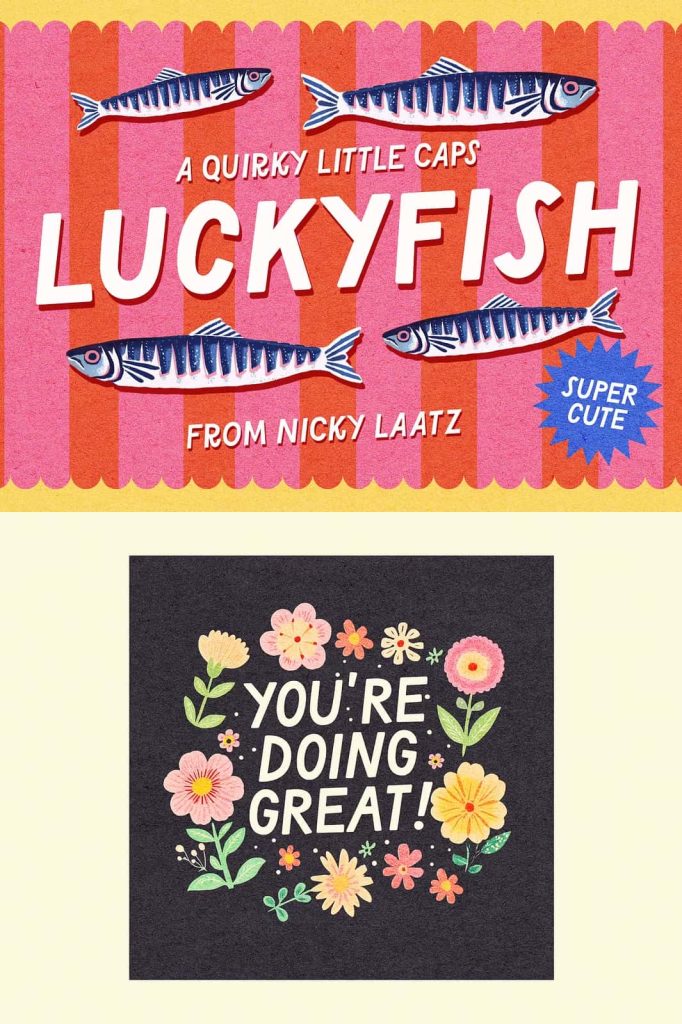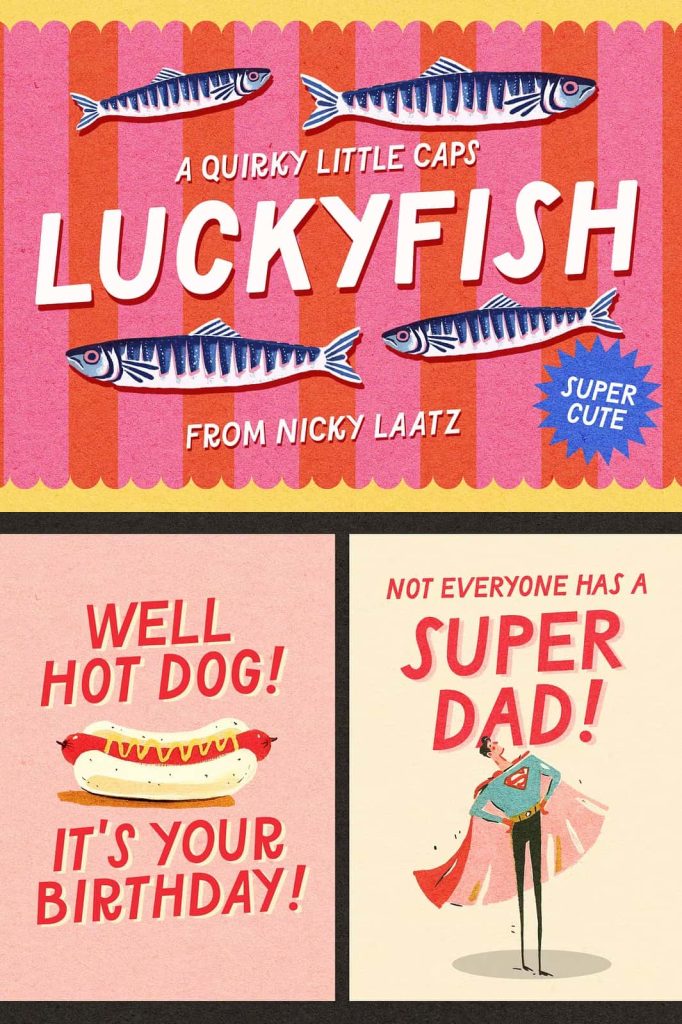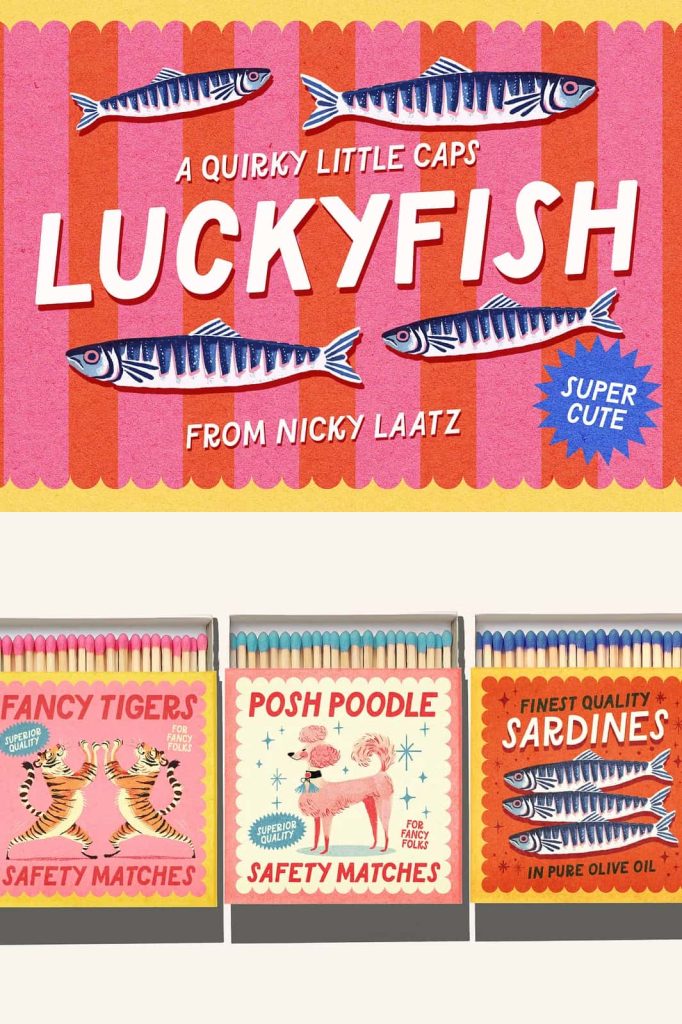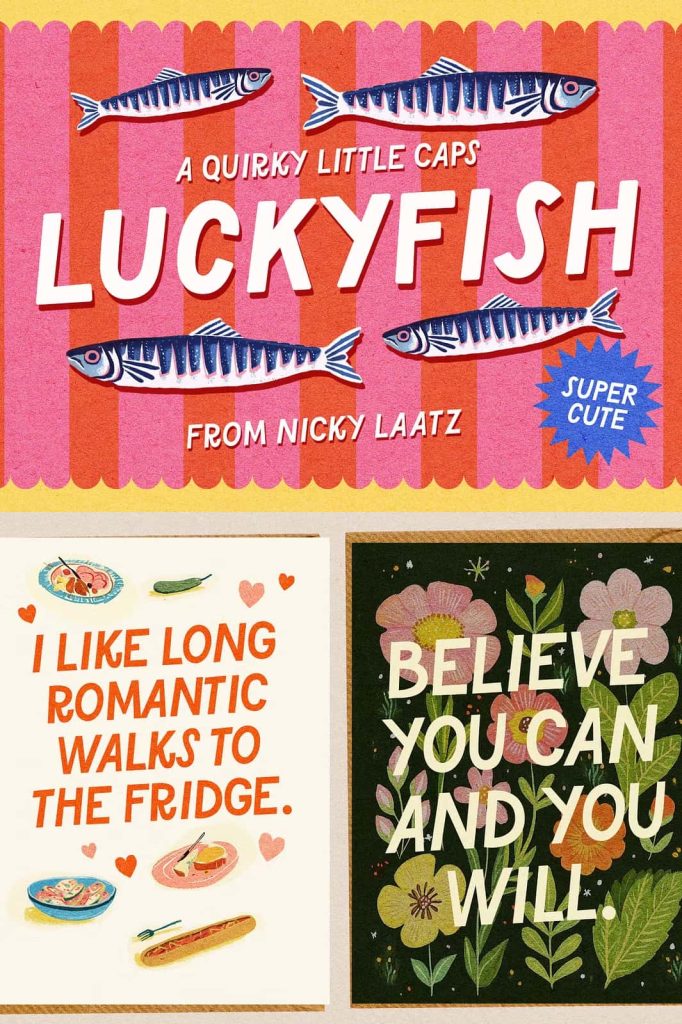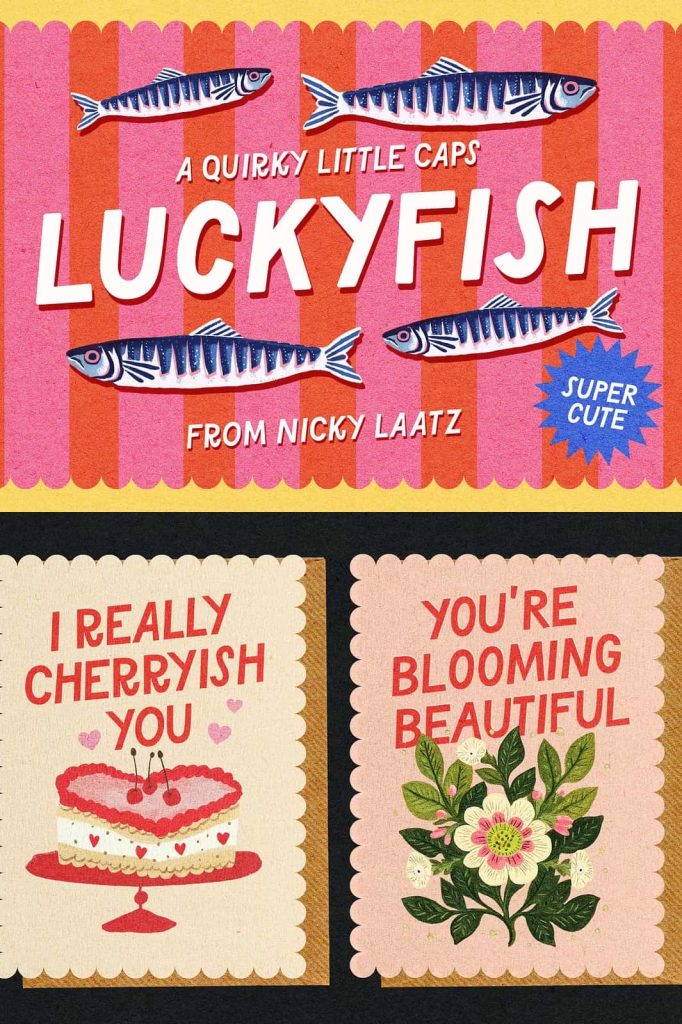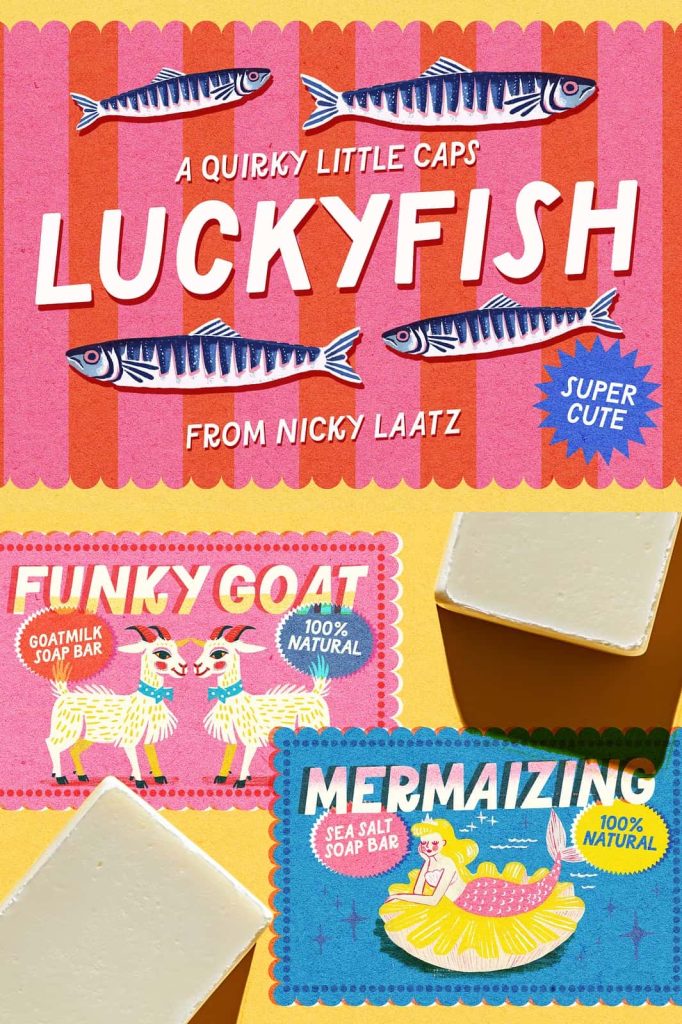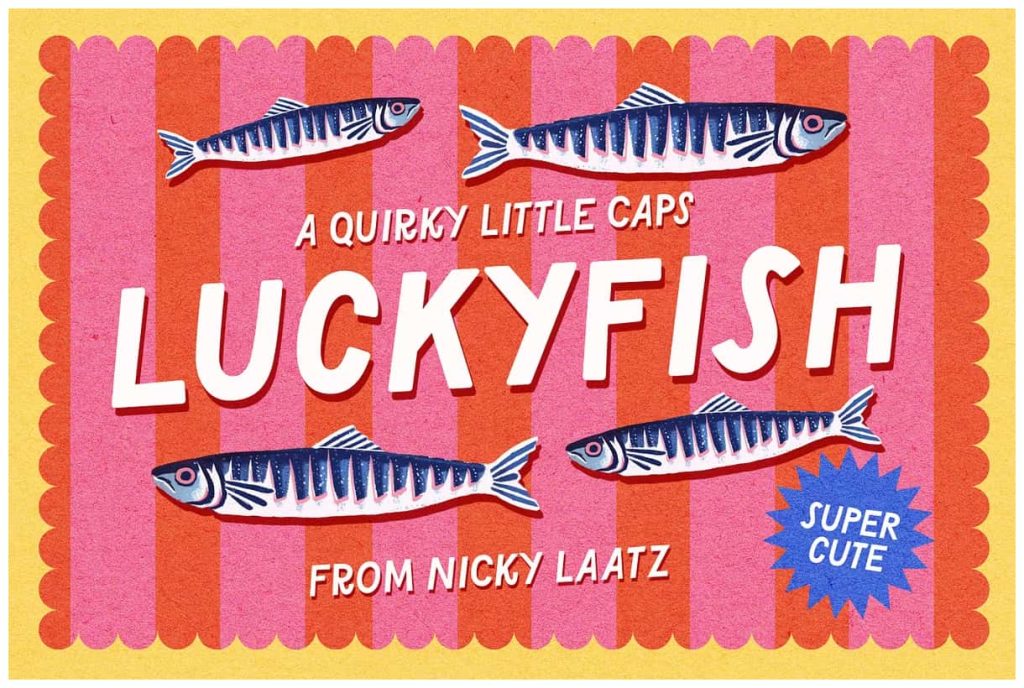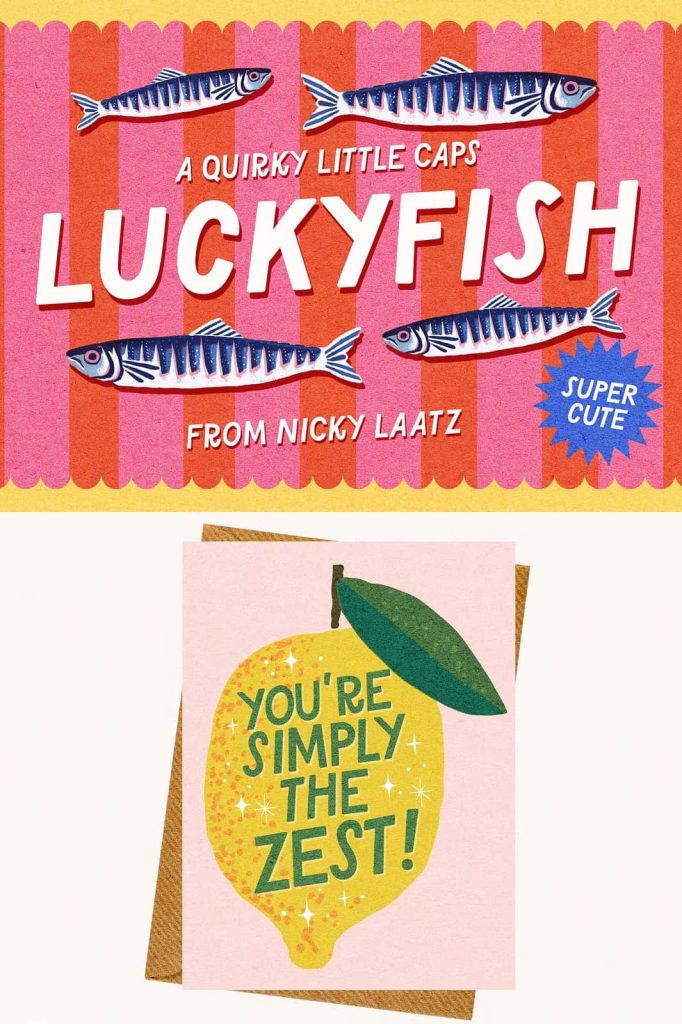
Lucky Fish Font – A Playful All-Caps Typeface for Bold and Joyful Designs
Lucky Fish Font is a loud, energetic, and playful all-caps font family designed to bring joy, confidence, and creativity to your projects. With six dynamic styles to choose from, this typeface injects a burst of personality into every design. Whether you’re working on fun greeting cards, bold prints, cheeky branding, or vibrant packaging, Lucky Fish makes every word pop with enthusiasm and character.
Discover the Playful Personality of Lucky Fish Font
Lucky Fish Font isn’t just another typeface—it’s an expressive tool that captures the spirit of fun and creativity. Each letterform is crafted with boldness and charm, giving your words a strong visual impact. Its all-caps design ensures attention-grabbing readability, while the quirky shapes and joyful rhythm bring a sense of movement and life to your text.
This font is designed for designers who love creating with emotion and energy. Lucky Fish is loud but never overbearing. It balances boldness with friendliness, making it a perfect choice for any project that needs a touch of humor, excitement, or positivity.
Six Distinct Styles for Endless Creativity
What makes Lucky Fish Font truly special is its variety. The family comes with six unique styles, each with its own flair. These styles give designers the flexibility to mix, match, and experiment—creating visually rich compositions with depth and texture.
From smooth outlines to textured variations, each style maintains the font’s core personality while offering distinct moods for different design needs. You can use one style for headlines, another for accents, or even layer them together for striking effects that grab attention.
Perfect for Fun, Bold, and Cheeky Design Projects
The Lucky Fish Font family shines in any project that calls for energy and personality. Its bold, all-caps structure makes it ideal for high-visibility text, while the playful aesthetic ensures your designs remain approachable and engaging. Whether you’re crafting quirky packaging or designing an exciting poster, Lucky Fish adds that extra spark that makes people smile.
Best Uses for Lucky Fish Font:
- Fun Greetings: Create exciting greeting cards and invitations that radiate joy and creativity.
- Bold Prints: Design posters, t-shirts, and art prints that stand out with confidence and flair.
- Cheeky Branding: Give your brand a fun-loving, approachable identity that customers remember.
- Happy Packaging: Make your products pop off the shelves with cheerful and unique typography.
- Social Media Graphics: Draw attention to your posts with high-energy headlines and captions.
- Children’s Content: Perfect for playful books, games, and educational materials that appeal to young audiences.
Designed to Make Words Pop with Personality
Every element of Lucky Fish Font is created to ensure maximum impact. Its clean yet expressive letterforms maintain excellent readability, even at smaller sizes, while the playful shapes invite creativity. Designers can combine multiple styles from the family to build dynamic compositions that feel fresh and alive.
Lucky Fish embraces imperfection and spontaneity—the very traits that make design exciting. Whether you’re pairing it with illustrations, using it as a standalone headline, or experimenting with color and layout, this font family ensures your message stands out in a crowd.
Key Features of Lucky Fish Font Family
- All-Caps Design: Ensures bold and consistent visual impact across all compositions.
- Six Playful Styles: Includes multiple variations for creative layering and customization.
- Versatile Applications: Perfect for branding, packaging, posters, and digital content.
- Easy Readability: Maintains clarity while expressing fun, energy, and creativity.
- Distinct Personality: Balances boldness with friendliness for a modern, approachable tone.
Bring Fun and Bold Energy to Every Project
Lucky Fish Font was designed to make you smile. It captures the carefree energy of creativity, encouraging designers to take bold risks and embrace color, humor, and enthusiasm. Whether you’re working on a campaign for a youthful brand or designing an artistic poster, Lucky Fish adds a playful edge that elevates your message.
This typeface family is more than a design tool—it’s a creative companion. With its expressive curves, confident shapes, and flexible variations, it invites you to experiment and have fun while maintaining professional results.
Why Designers Love Lucky Fish
Designers around the world appreciate Lucky Fish Font for its versatility and joy. It’s simple to use, instantly engaging, and adaptable to a wide range of design contexts. Its clean yet lively appearance gives every project a distinct voice. From product packaging to social media branding, Lucky Fish offers a bold typographic foundation that radiates optimism and creativity.
With its blend of playfulness and professionalism, Lucky Fish Font ensures that your designs don’t just speak—they shout with happiness and flair. Make your next project unforgettable with the energy and charm of Lucky Fish.